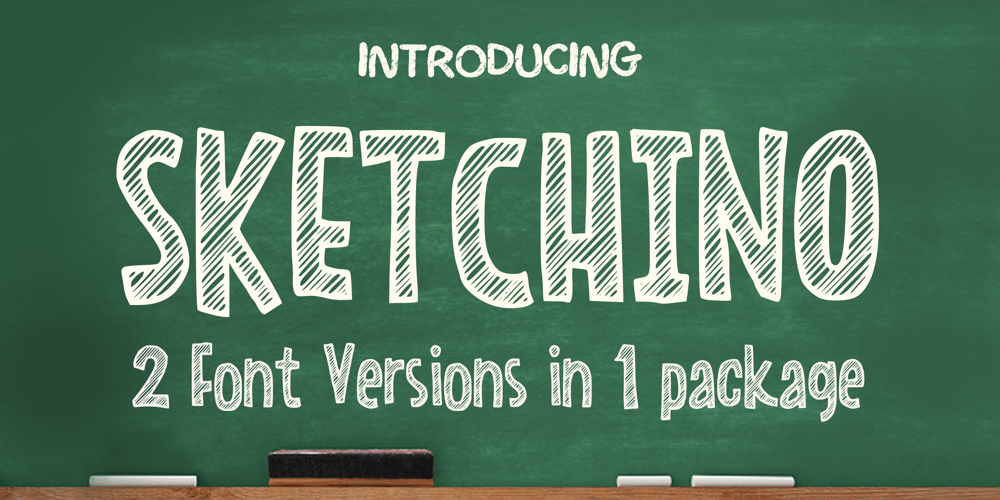
Sketchino Font Family was designed by Gabriel Valentinus and published by Mvmet. Sketchino contains 2 styles and family package options. Sketchino is a cool and playful hand drawn font. The font is awesome for creating cool designs that scream for attention. It’s ideal for anything ranging from t-shirts, book designs, restaurant menu, blog writing, greeting cards to stickers, or anything that needs a casual touch. Fall in love with its incredibly cool style, and use it to create lovely designs!